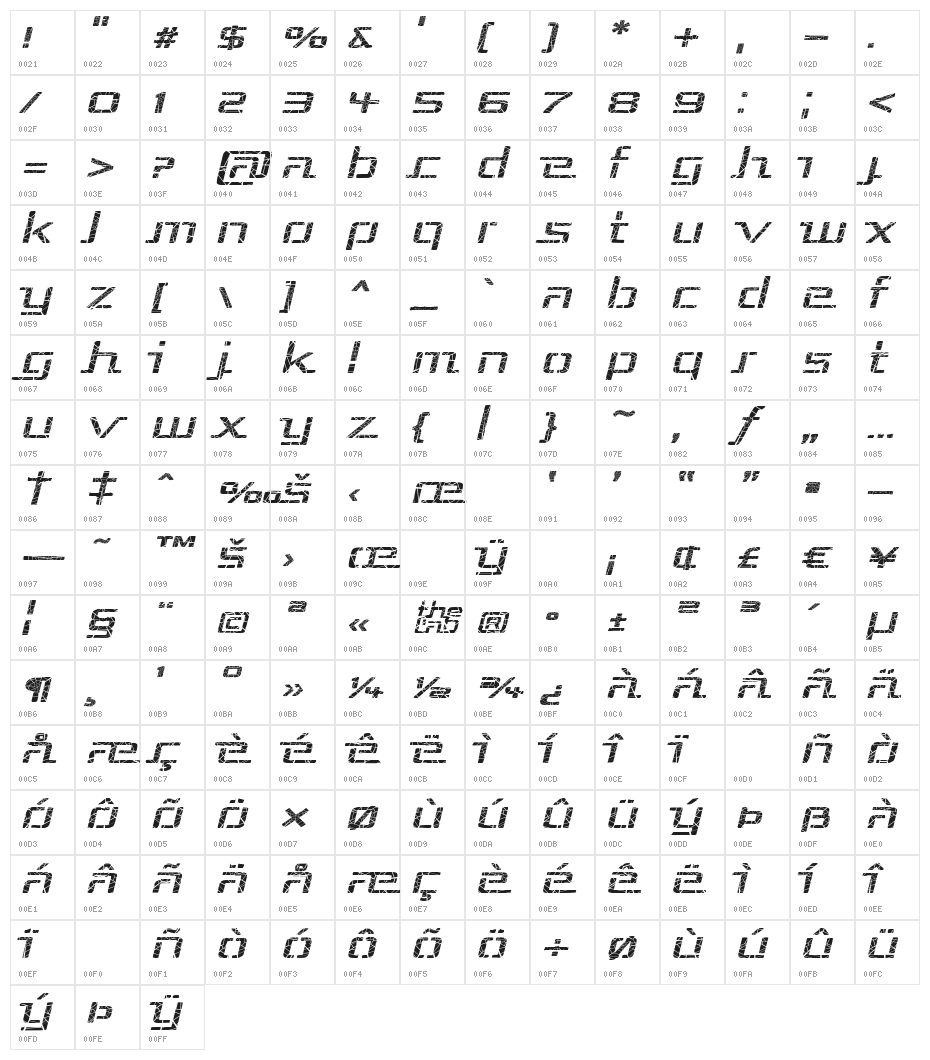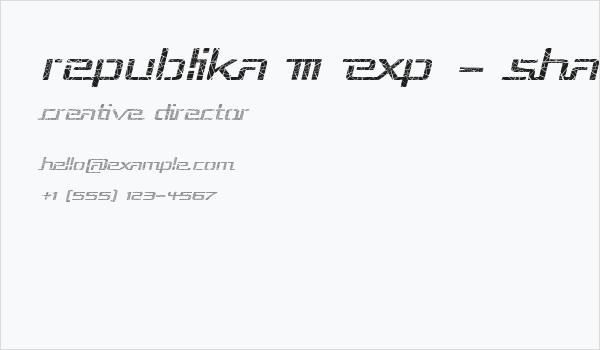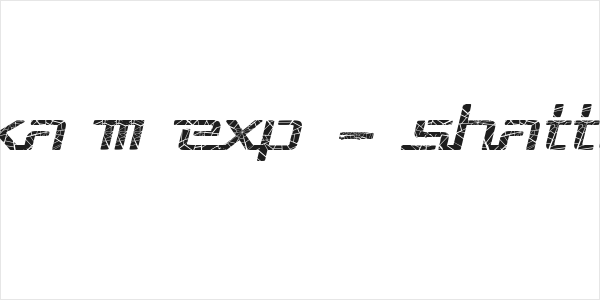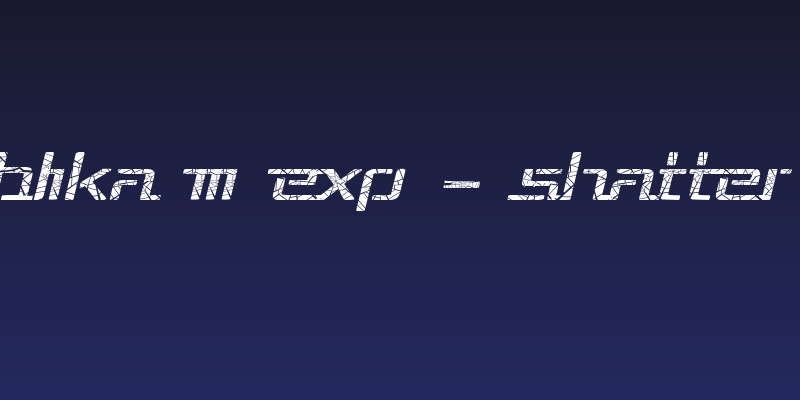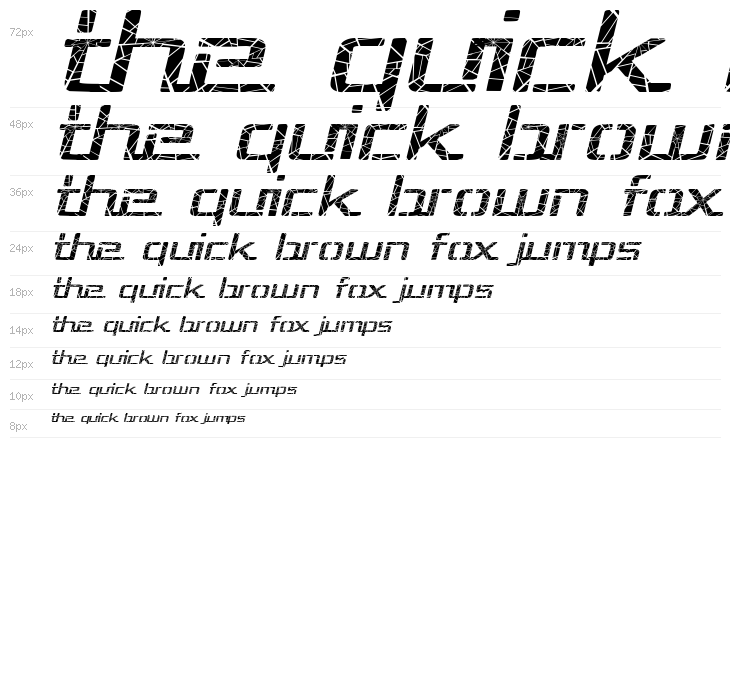
Republika III Exp - Shatter Italic Font
Republika III Exp - Shatter Italic Description
This font features a unique shattered effect that gives each character a fragmented, dynamic appearance. The italicized style adds a sense of movement and energy, making it stand out. The geometric fragmentation within each letter creates a modern and edgy look, suitable for projects that require a bold statement. The characters are evenly spaced, ensuring readability despite the intricate design. This font is ideal for creative and contemporary designs that aim to capture attention and convey a sense of innovation.
| Proposed Projects | Ideal for album covers, posters, branding for tech companies, and any project needing a futuristic and bold aesthetic. |